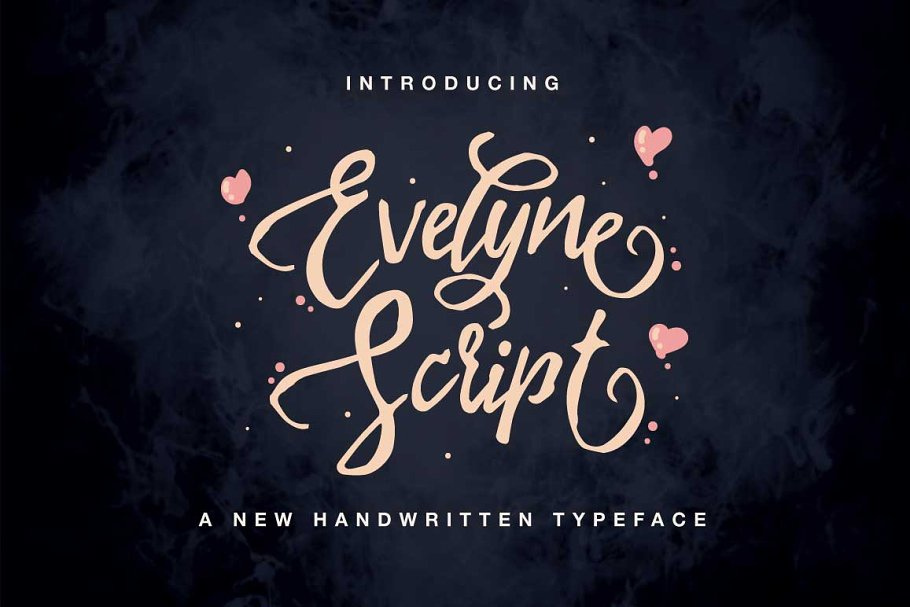
Evelyne Script Font
Evelyne Script Font is perfect for elegant wedding invitations, sophisticated beauty brand logos, refined boutique signage, graceful greeting cards, upscale fashion campaigns, luxurious spa treatments, cultured hospitality branding, feminine lifestyle magazines, exclusive event materials, and timeless personal stationery.
Evelyne Script Font is exciting because it perfectly captures the essence of timeless feminine elegance and sophisticated grace, creating a script typeface that embodies refined beauty, cultured sophistication, and the enduring charm of classic feminine style. This font brings graceful distinction and elegant authenticity to any project, making it ideal for luxury brands that want to convey femininity, refinement, and the sophisticated beauty that transcends fashion trends. Its elegant character and timeless appeal create an atmosphere of cultured sophistication that resonates with discerning audiences who appreciate classic feminine elegance.
Evelyne Script Font family includes regular, light, and medium weights, plus elegant swashes, sophisticated flourishes, and refined ornamental elements, providing designers with comprehensive tools for creating graceful typography and elegantly sophisticated brand experiences.
This distinguished elegant script typeface combines classical feminine aesthetics with contemporary design functionality, making Evelyne Script Font Free Download a premium choice for projects celebrating timeless beauty and sophisticated femininity. The font's gracefully crafted letterforms feature elegant proportions and refined styling that reflect the cultured beauty and sophisticated grace of classic feminine elegance.
Whether you're designing luxury fashion branding, sophisticated beauty campaigns, or elegant hospitality materials, Evelyne Script Font delivers unmatched feminine authenticity and sophisticated appeal. The font excels in both intimate luxury applications and grand scale environments where elegance and sophistication create memorable refined experiences.
Luxury brand professionals choose Evelyne Script Font for its ability to instantly communicate feminine sophistication and timeless elegance while creating emotional connections with discerning audiences seeking authentic luxury and refined beauty. The font's graceful character makes it particularly effective for luxury fashion houses, sophisticated beauty brands, and elegant lifestyle companies.
Each character reflects the flowing artistry of refined penmanship, featuring elegant curves and sophisticated proportions that create typography as beautiful and timeless as silk evening gowns, pearl jewelry, and the most sophisticated expressions of feminine elegance.